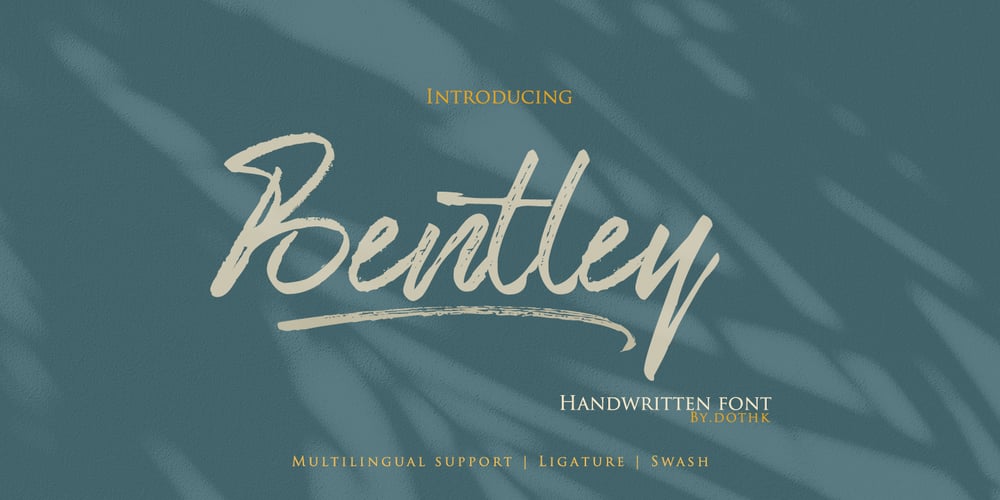
Bentley Script Font Family was designed by Ariefr Munandar and published by dotHK Studio. Bentley Script contains 1 styles and family package options. Bentley Script Font is a casual dry brush font with a bunch of letter variations to make that perfect and unique design. Ideal for the header, logos, handwritten quotes, product packaging, poster, merchandise, social media & greeting cards.Bentley Script This font has been equipped with OpenType features and has many glyphs. and of course by having many of these glyphs will be able to choose the letters according to your liking, lots of variations and options for each letter, so you can customize your design choices and also have other languages supportedThis font is perfect for use with programs that support OpenType features like Adobe Photoshop Cs / Adobe Photoshop CC, Adobe Illustrator CS / Adobe Illustrator CC, Adobe Indesign and Corel Draw and many more programs that support OpenType, and I’ve also included a special alternative so you can use any program, this font can be used by everyone.if you have any question, please feel free to contact me by email. Thanks and congratulations designing :-)ariefmoenandar2@gmail.com